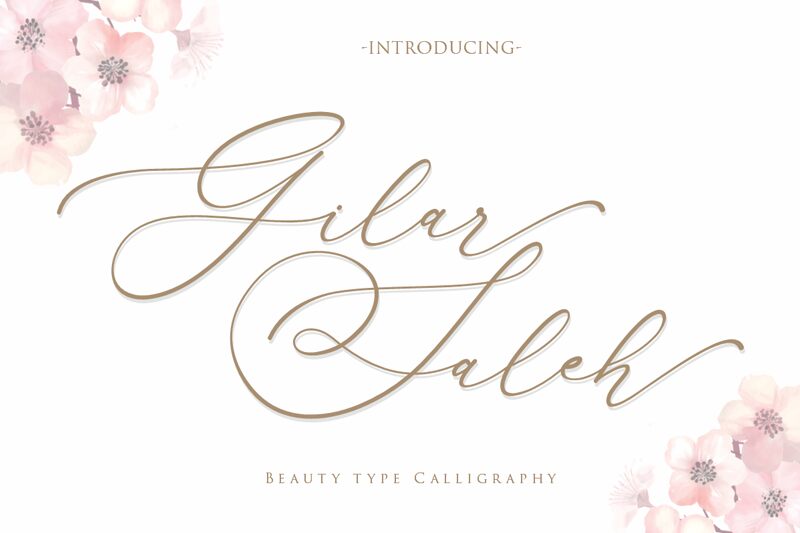
Gilar Saleh
Introducing the Beautiful Signature font, "Gilar Saleh" ! Gilar Saleh which is fashionable and super-cool with some extra stylish features. this font Is perfect for logo, invitation, stationery, wedding designs, social media posts, advertisements, product packaging, product designs, label, photography, watermark, special events or anything.